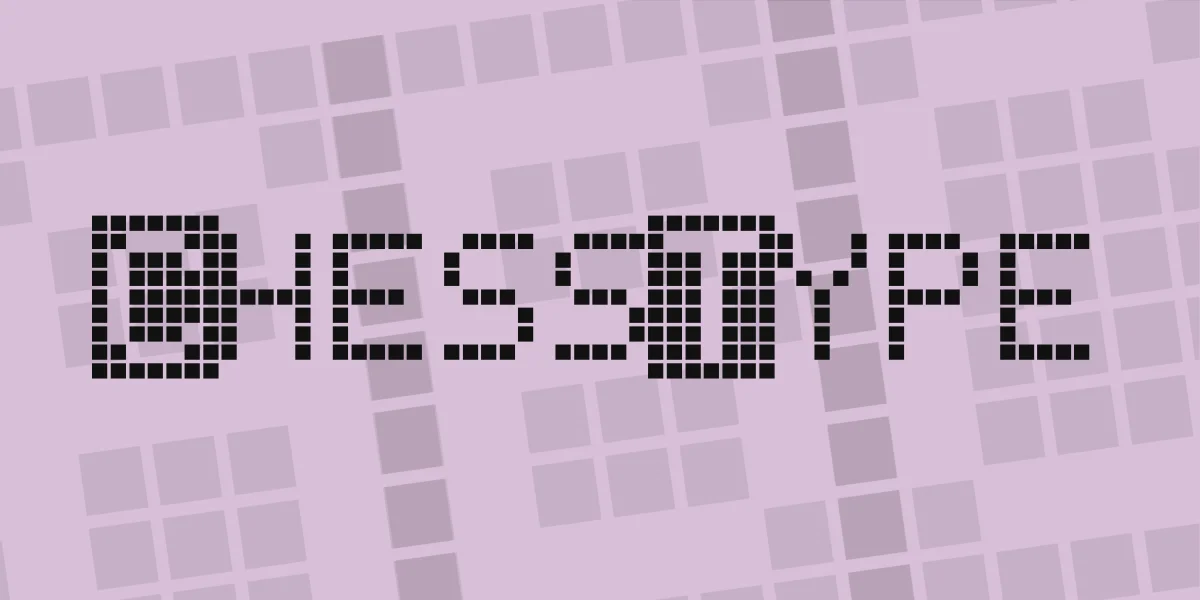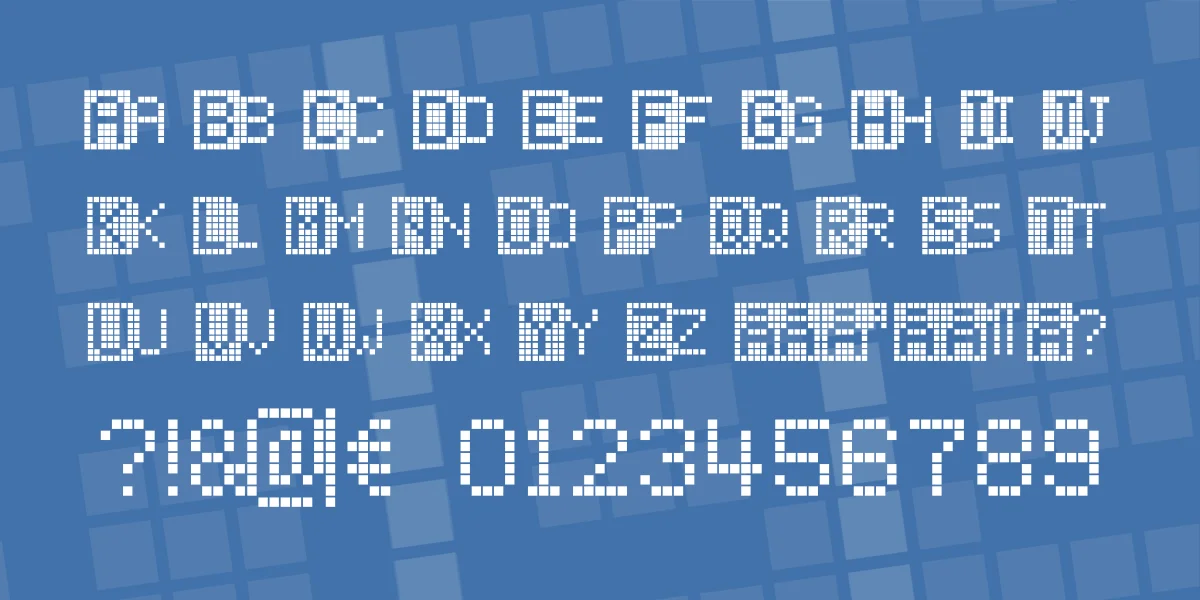
ChessType is a black & white squared LCD pixel font.- note: § + $ have been replaced with a filled and unfilled vertical pixelated line of space. ≠ + ± have been replaced with dotted vertical lines in opposition to one another. The $,§,± and ≠ still exist in the font-file, but in strange locations! Windows and Mac!